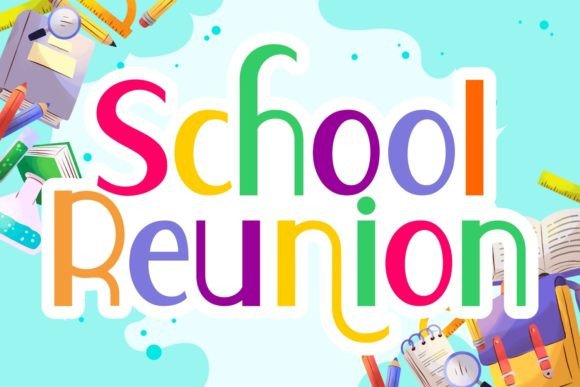
Behold, the School Reunion Font—an enchanting sans serif font that holds the key to unlocking unparalleled aesthetics in your creative endeavors! Experience the fusion of elegance and charm embedded in each meticulously crafted letter, designed exclusively for those seeking a touch of magic in their digital creations.
With School Reunion, the ordinary becomes extraordinary. Let your words dance gracefully across the screen, leaving a trail of beauty and intrigue in their wake. This font is an artist's dream, a tool that breathes life into your ideas, transforming them into visual masterpieces.
Step into a world where imagination reigns supreme and let School Reunion be your guide. Its clean lines and harmonious curves evoke a sense of nostalgia, while its contemporary twist keeps you firmly rooted in the present. Dive into a sea of creative possibilities, from heartfelt personal projects to captivating commercial campaigns—School Reunion is your steadfast companion, ready to elevate your designs to dizzying heights.
Embrace the power of simplicity, allowing the essence of your message to shine through. School Reunion is the perfect choice for those seeking clarity and impact, a font that effortlessly enhances the readability of your content without sacrificing an ounce of visual appeal.
Indulge in the joys of versatility, for School Reunion effortlessly adapts to a kaleidoscope of creative endeavors. Whether you're crafting eye-catching logos, designing stunning websites, or composing mesmerizing social media posts, this font seamlessly blends with your vision, adding a touch of elegance and sophistication that captivates and inspires.